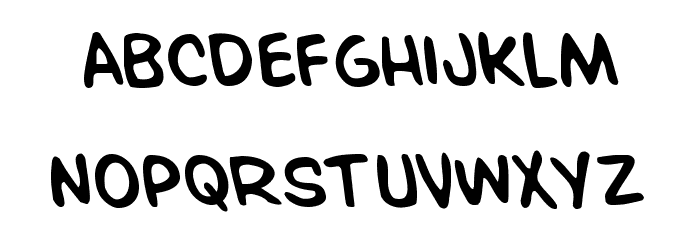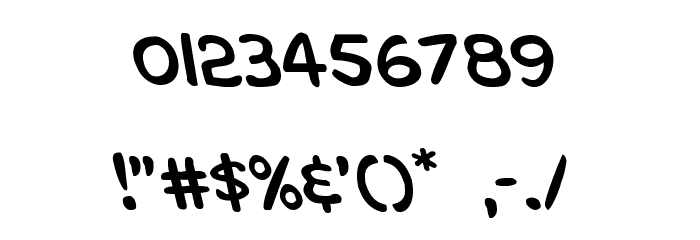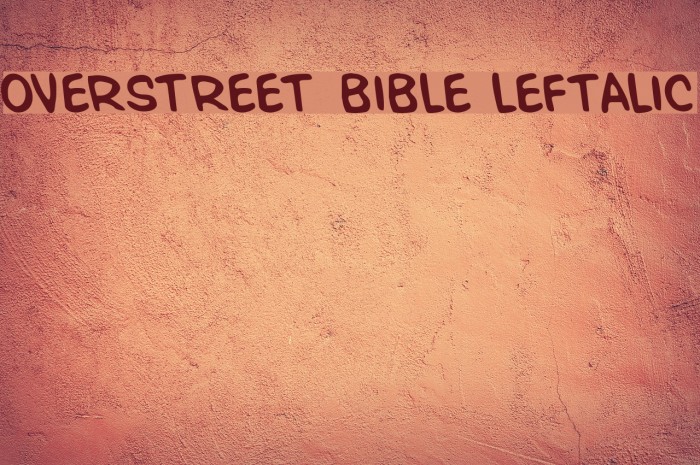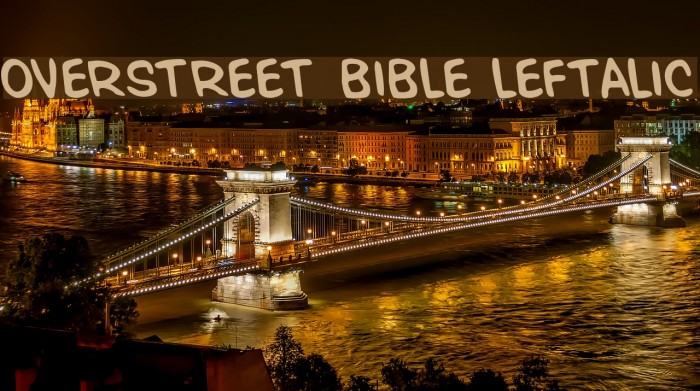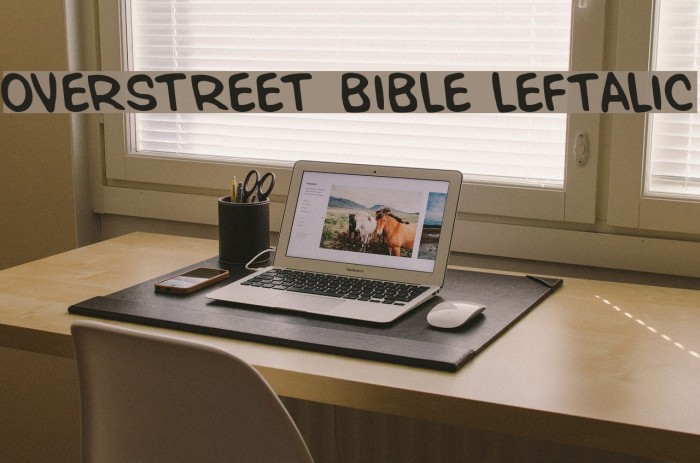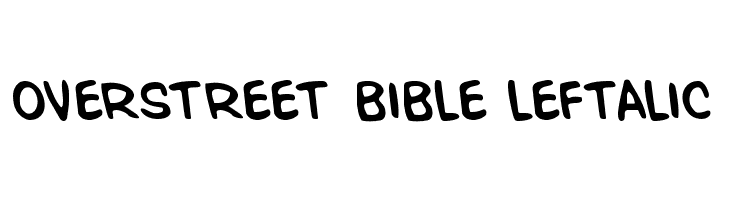
Overstreet Bible Leftalic Font
This playful and informal font features rounded, bold characters with a slightly uneven baseline, giving it a hand-drawn appearance. The letters are thick and have a consistent stroke width, contributing to a friendly and approachable look. The font includes both uppercase and lowercase letters, numbers, and a variety of special characters, making it versatile for different uses. Its whimsical style is reminiscent of comic or cartoon lettering, making it suitable for creative and casual applications.
A playful, hand-drawn style font with bold, rounded characters.
- Proposed Projects: Ideal for children's books, comic strips, playful branding, and informal invitations.
- Overall Style: Playful
- Use Case: Headlines, Logos, Informal Text